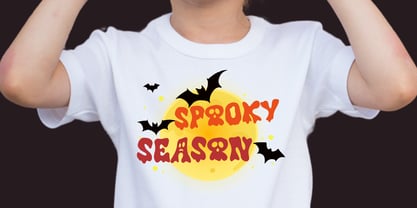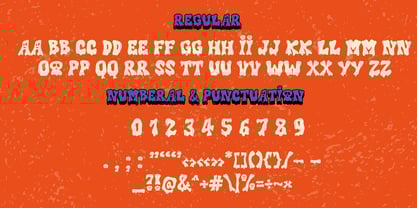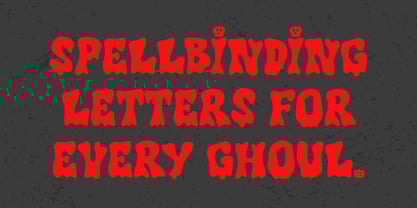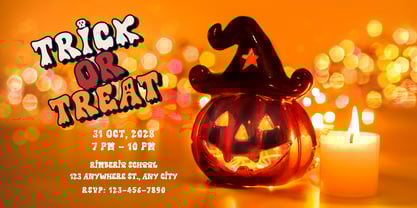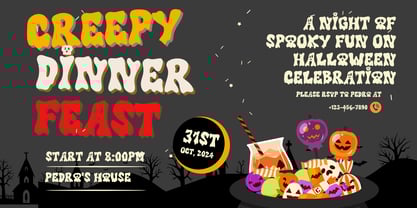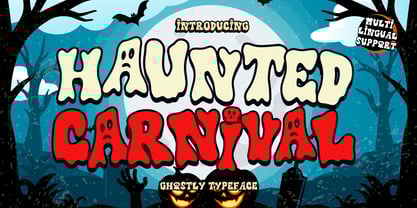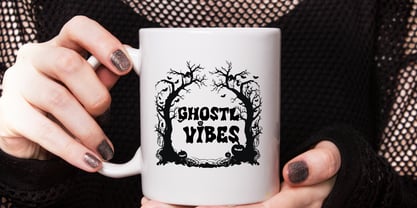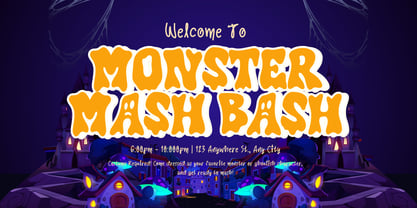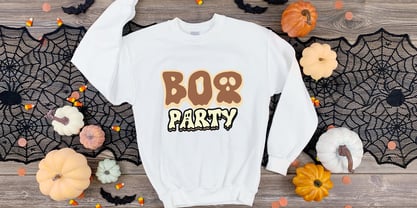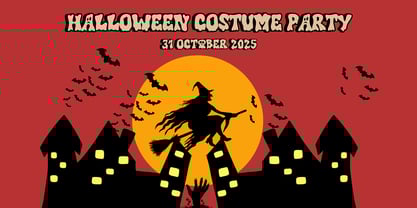
Haunted Carnival
by Brown Cupple Typeface
The Haunted Carnival Font Family was designed by Nattha​ Potchanad​ and published by Brown Cupple Typeface. Haunted Carnival contains 1 styles.
Haunted Carnival is a spooky Halloween font inspired by chilling ghost stories and eerie gothic vibes. With playful yet creepy curves, it perfectly captures the atmosphere of haunted houses, monsters, and midnight mysteries. Ideal for Halloween party posters, spooky invitations, horror movie titles, or any project that needs a touch of darkness and fantasy. This font will add a unique blend of scary and stylish energy to your seasonal designs.